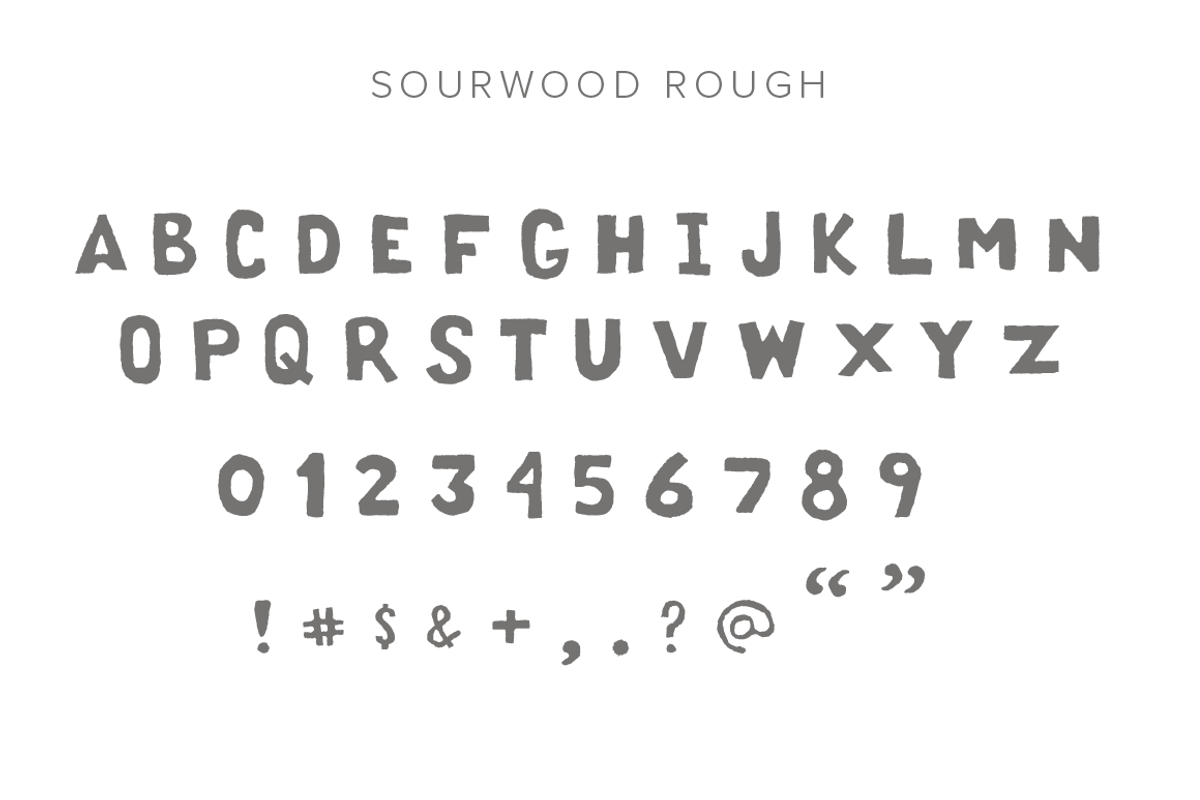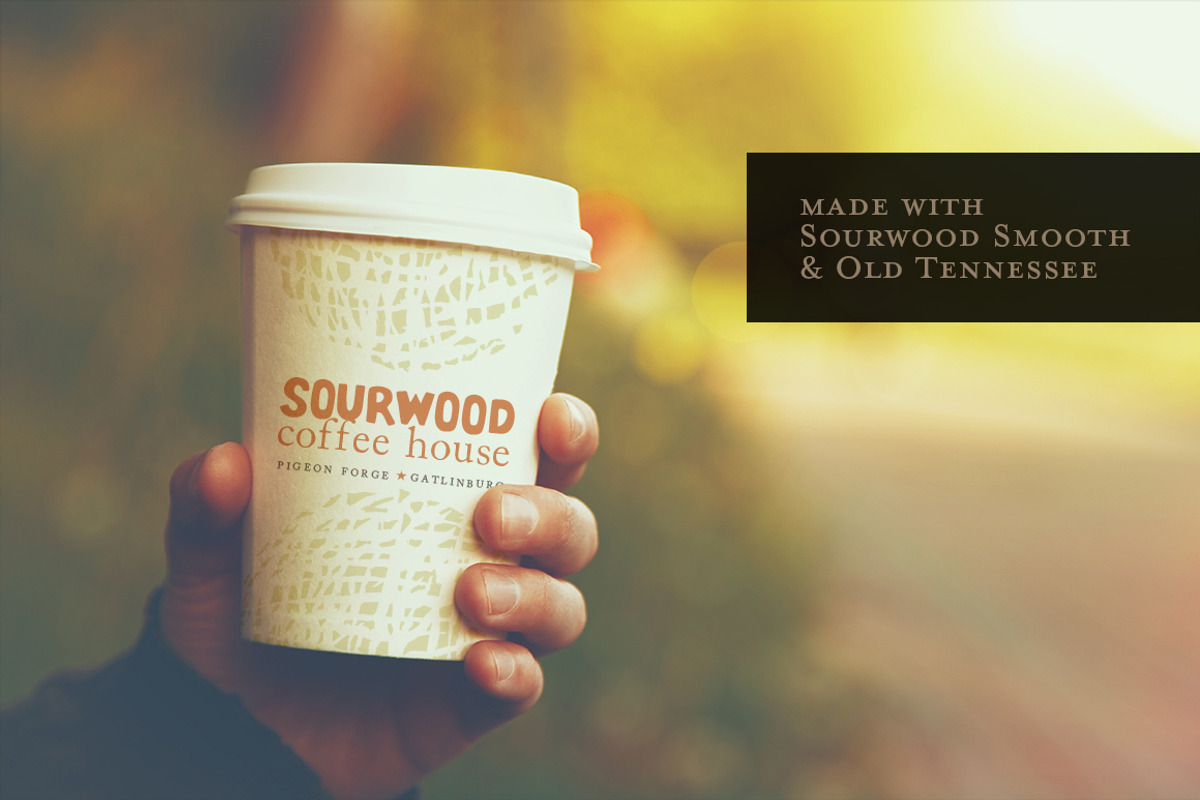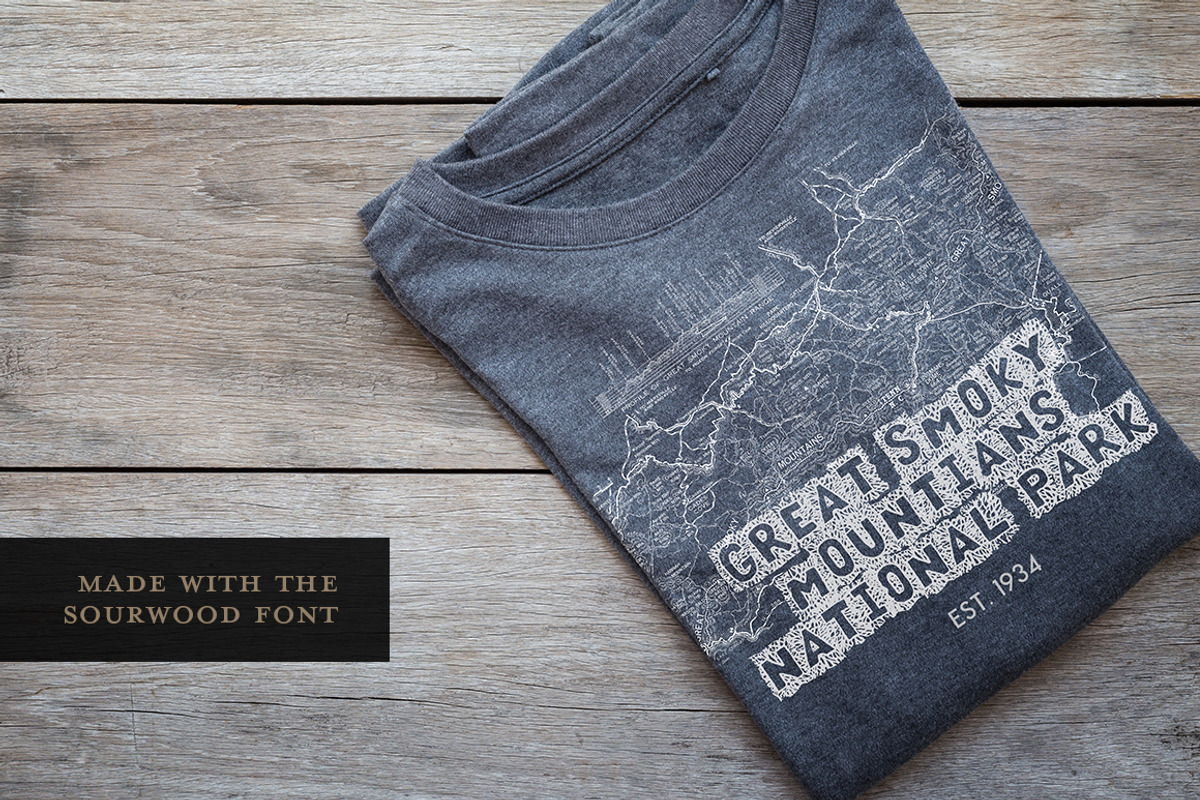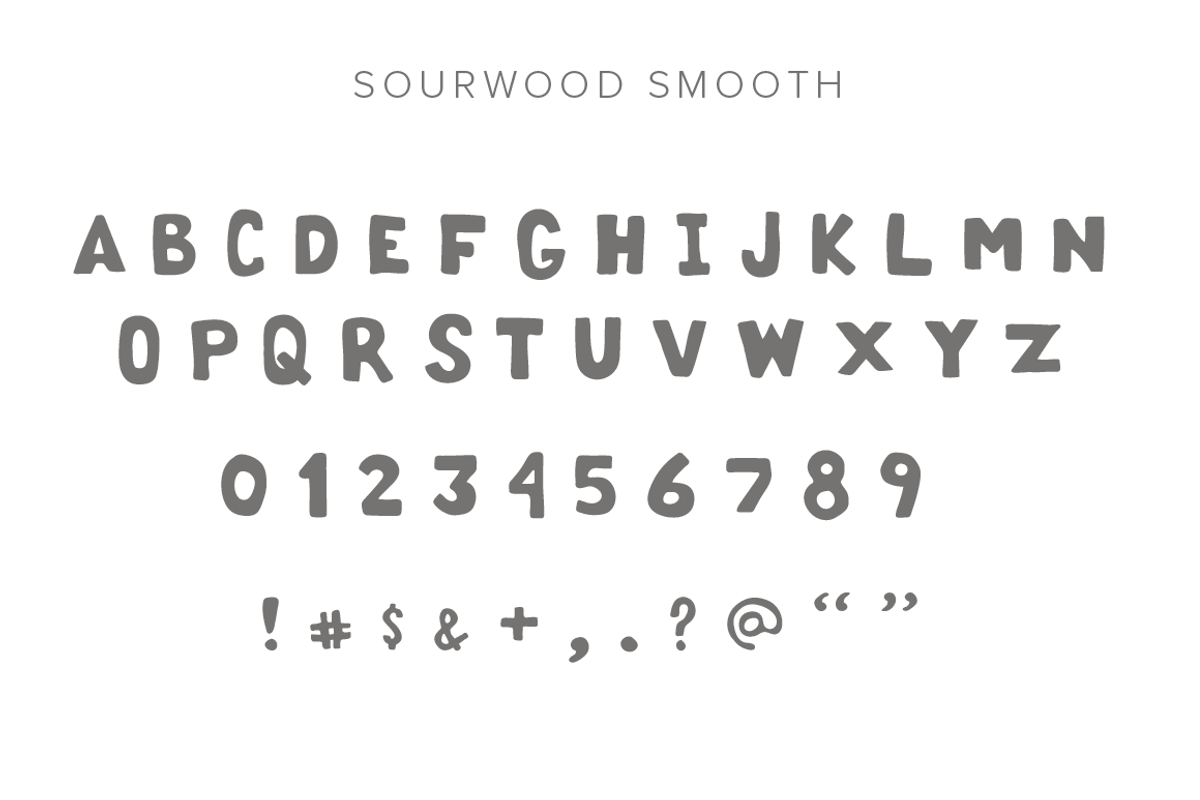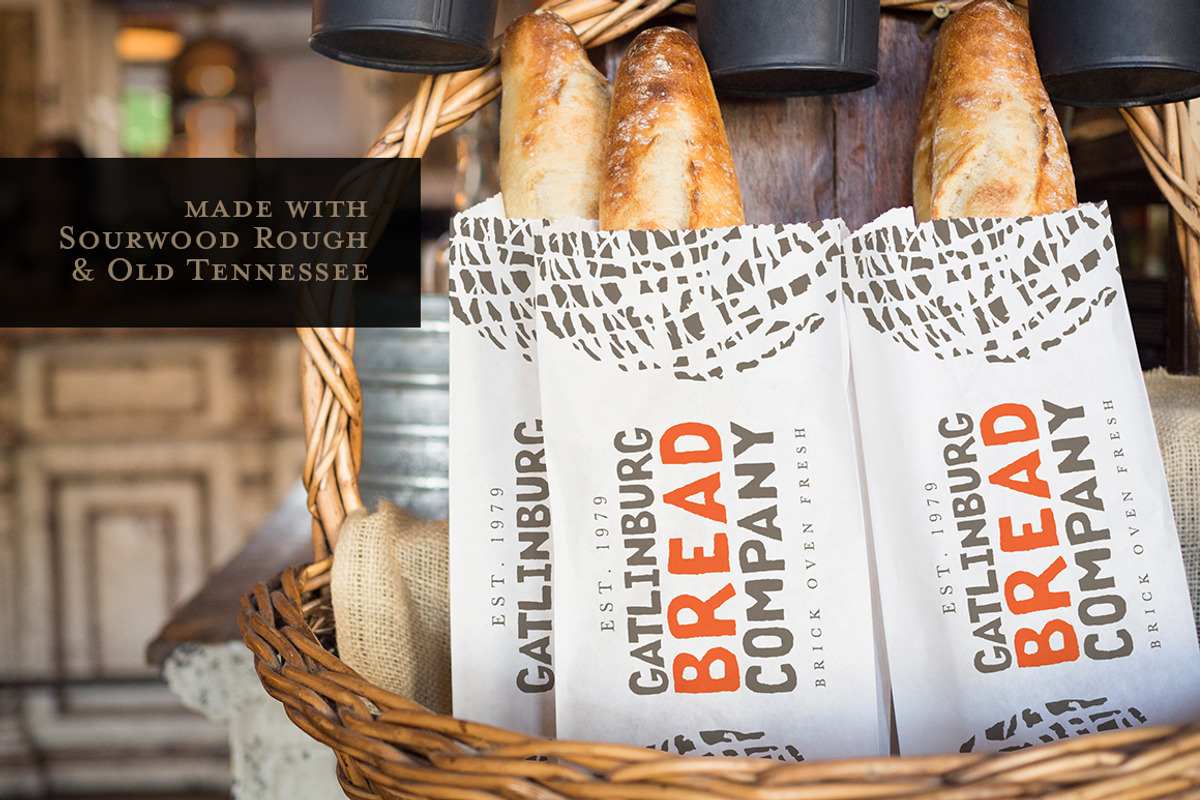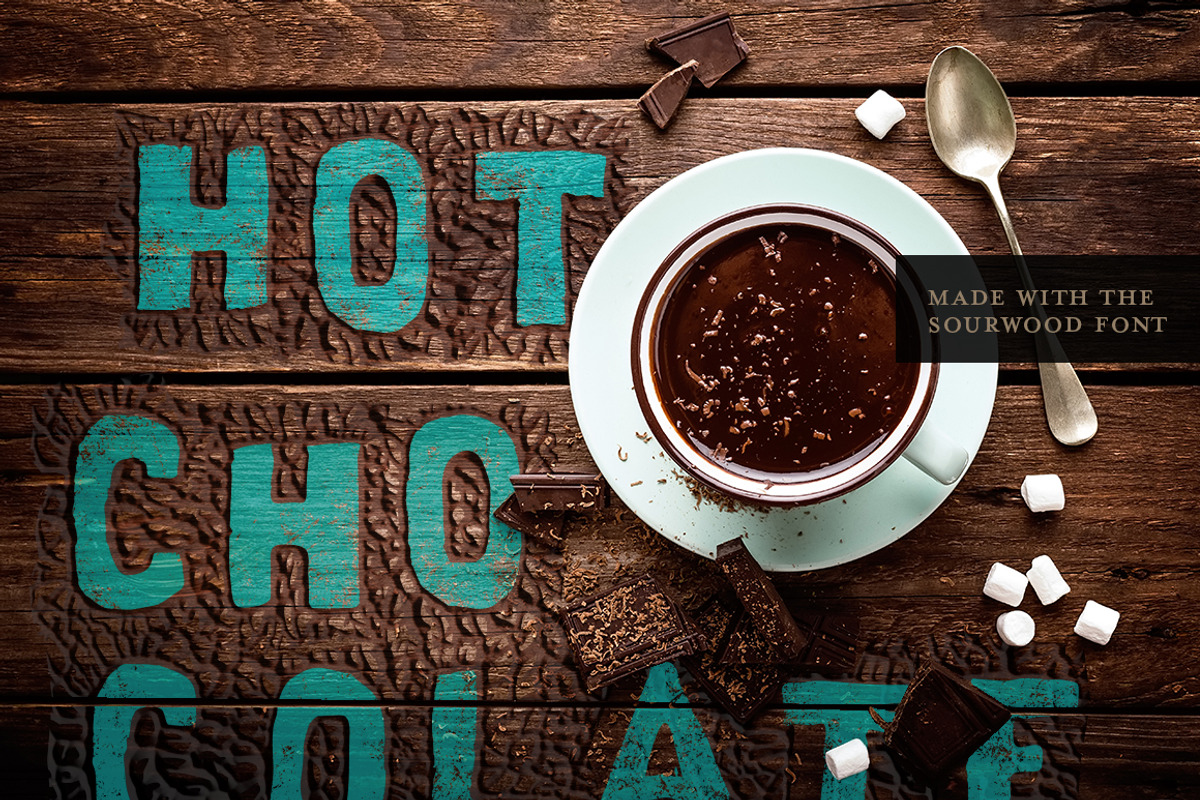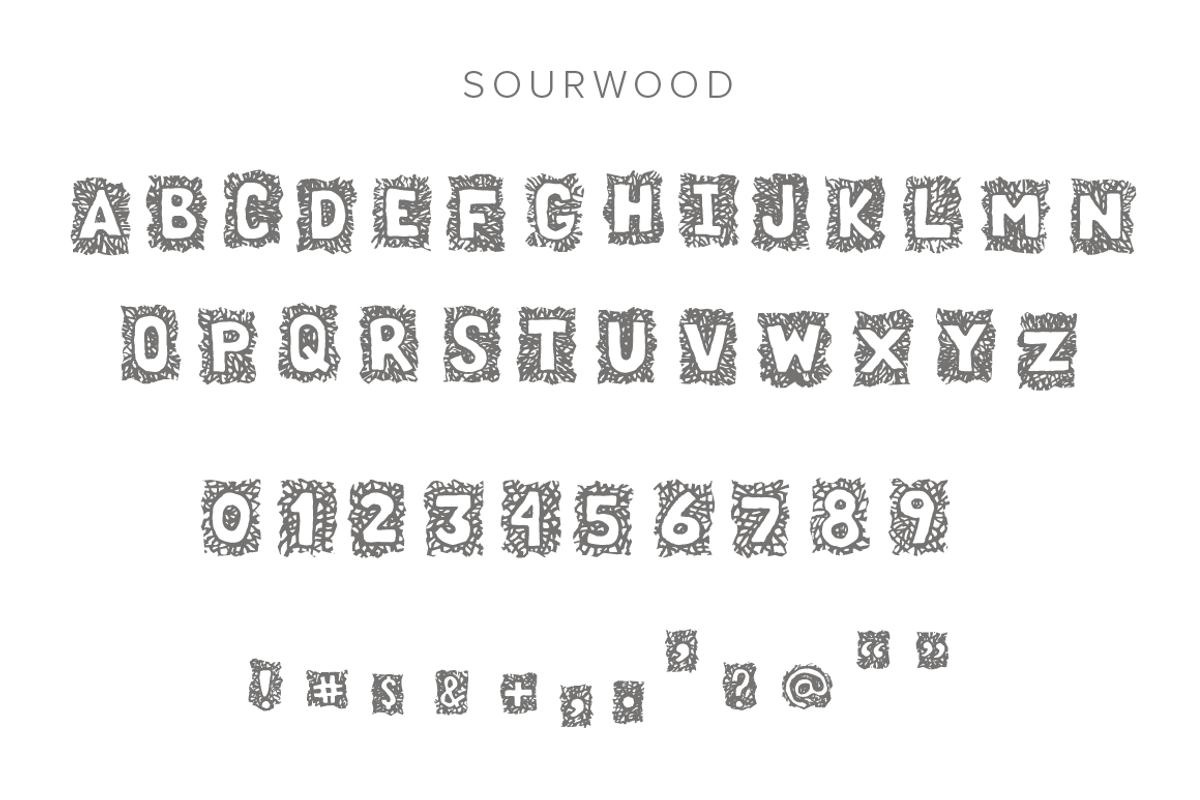
Sourwood: woodcut font family
Sourwood is a rustic, display type family. Inspired by the Smoky Mountains and created by hand from woodcut letters, numerals and symbols.
- Some excellent uses for this collection: logos, branding, titles, photo illustrations and package design.